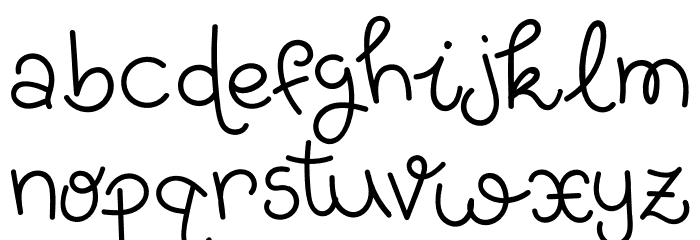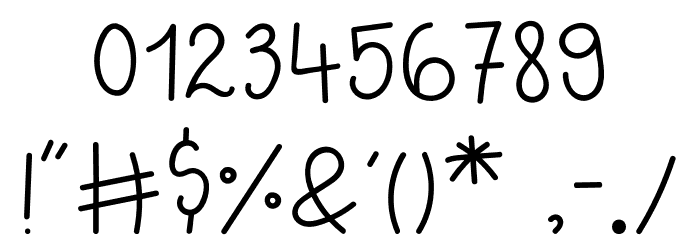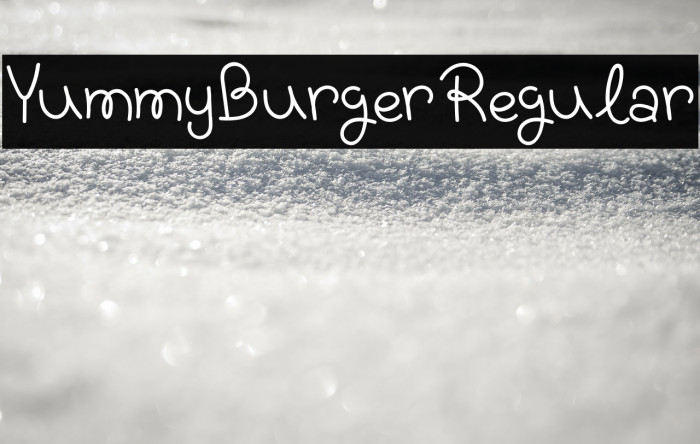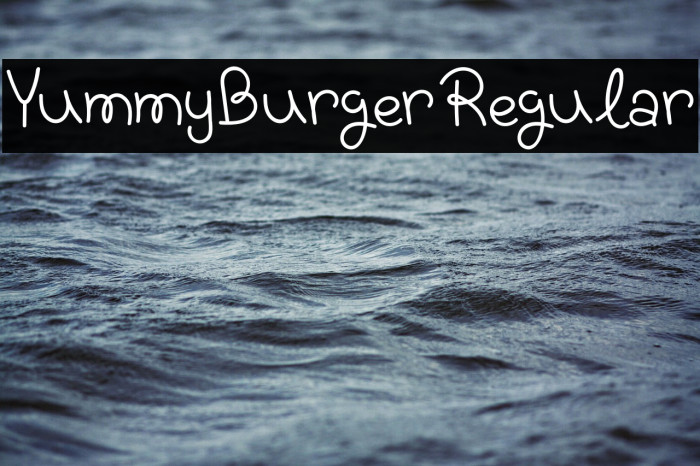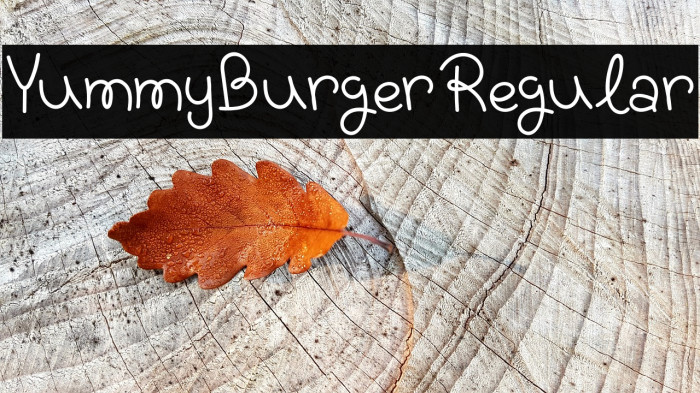
YummyBurgerRegular Font
This playful and whimsical font features a handwritten style with a casual, friendly appearance. The letters are rounded and slightly irregular, giving them a charming, informal look. The uppercase and lowercase letters maintain a consistent style, with a slight slant that adds to the dynamic feel. The numbers and special characters are designed to match the overall aesthetic, making them suitable for a variety of creative projects. The font's unique character is perfect for adding a personal touch to any design.
- Proposed Projects: Ideal for children's books, greeting cards, playful branding, and social media graphics.
- Category: Handwritten
- Overall Style: Playful
- Use Case: Headlines, Logos, Invitations